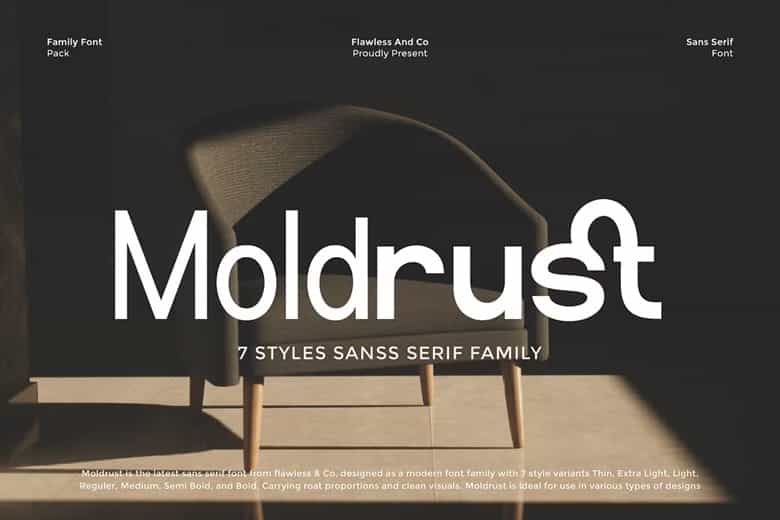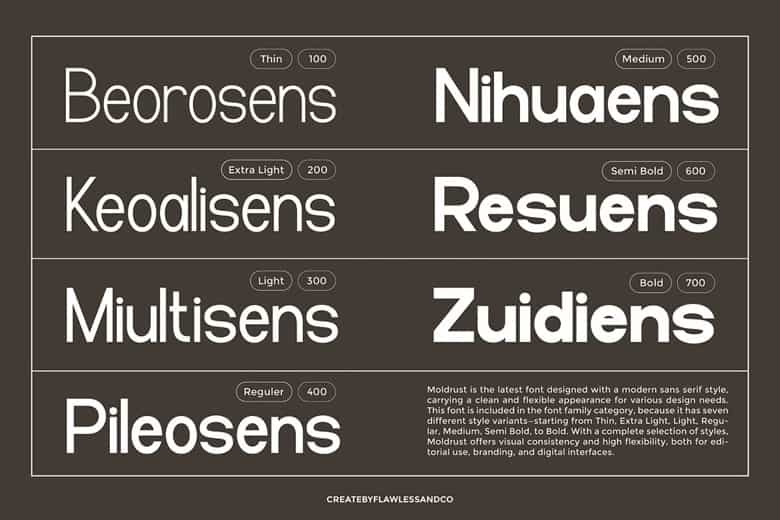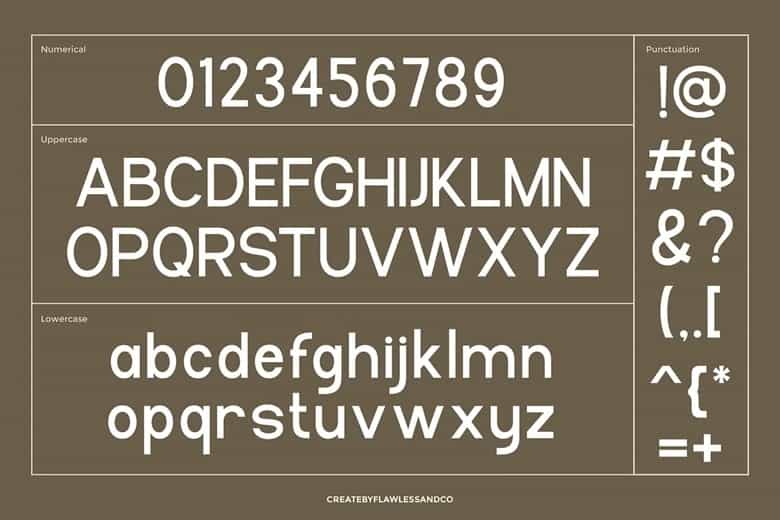
Moldrust is an elegant sans serif font family with 7 styles that include Thin, Extra Light, Light, Regular, Medium, Semi Bold, and Bold. The clear visuals along with well-considered proportions make Moldrust versatile and obedient to numerous design requirements, errors and omissions free: editorial, branding, packaging, and digital. Moldrust is also a good choice when simplicity is required in construction, yet modernity is also desired in a project.